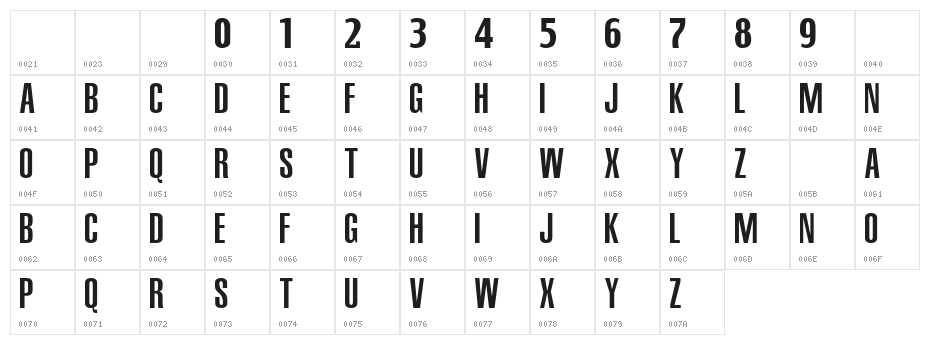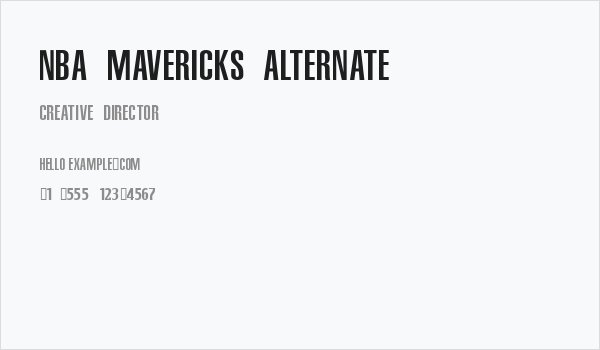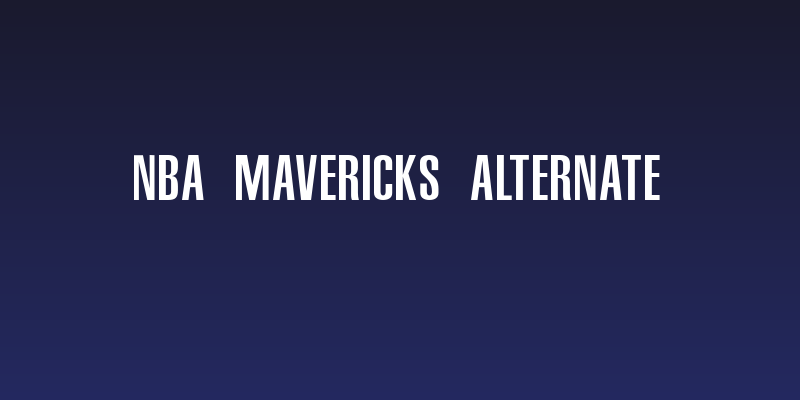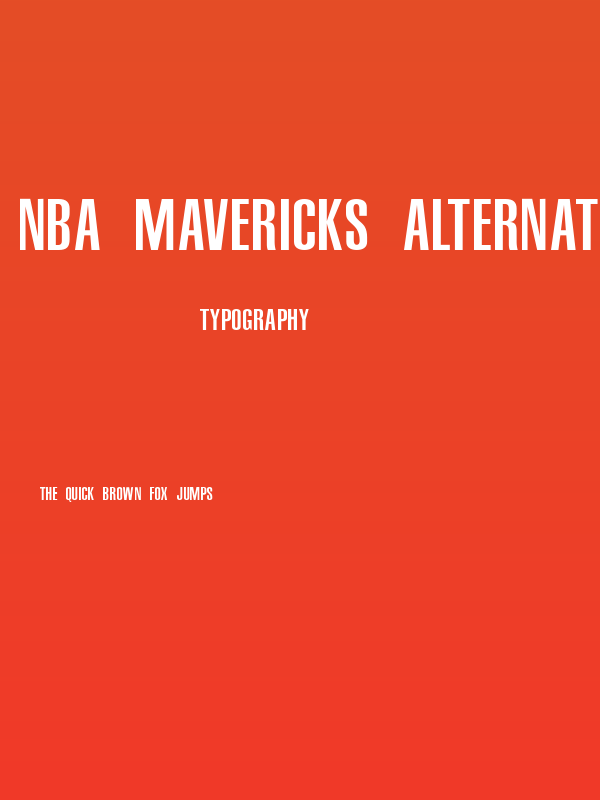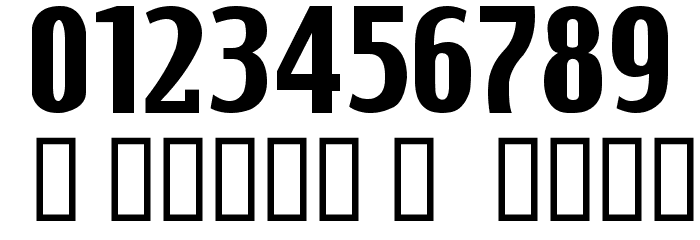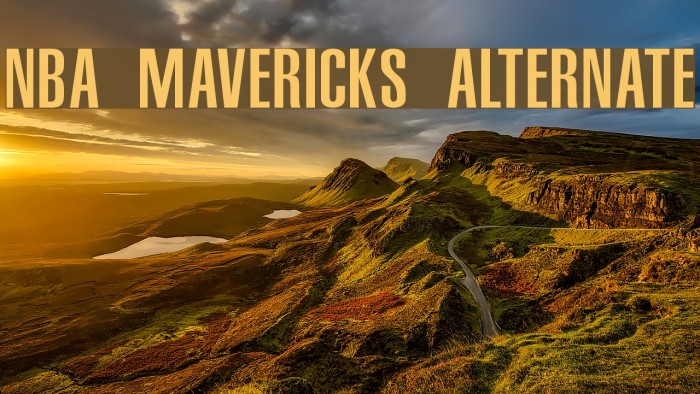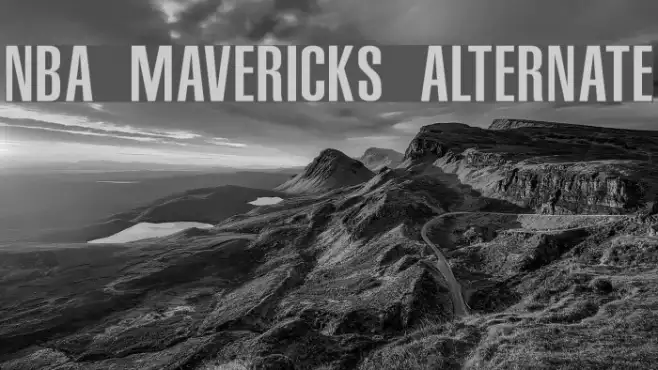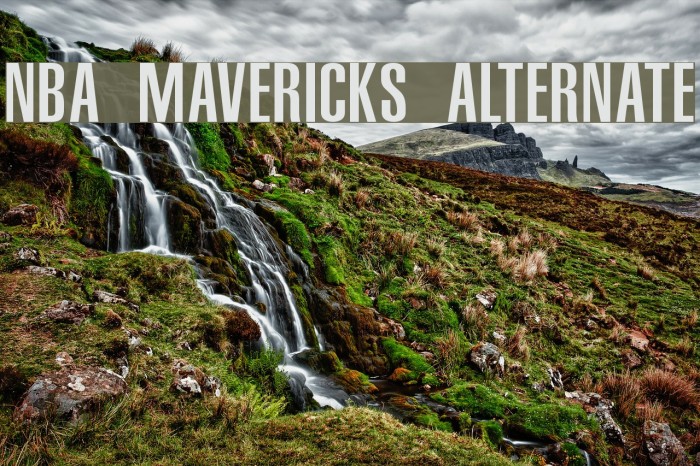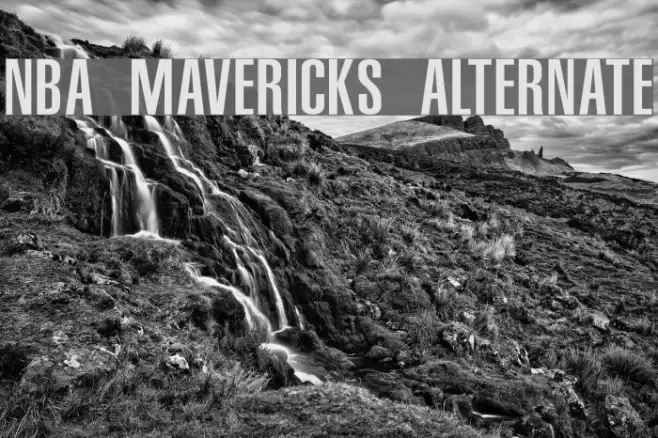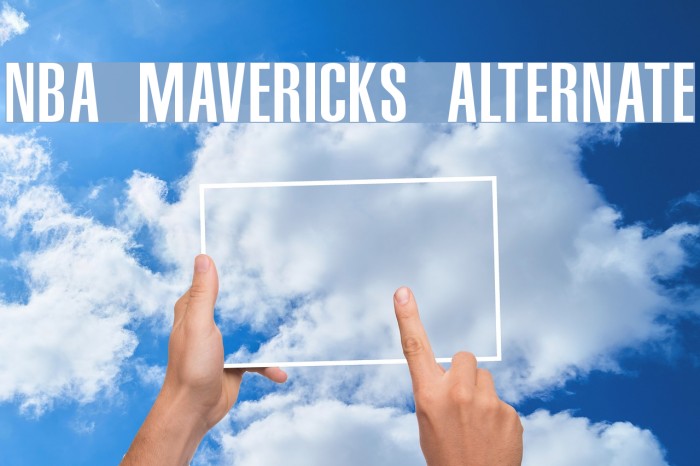
NBA Mavericks Alternate Font
NBA Mavericks Alternate Description
This font features a bold and impactful design with strong, clean lines and a modern aesthetic. The uppercase letters are tall and commanding, while the lowercase letters maintain a consistent height, creating a cohesive look. The numerals are equally bold, ensuring visibility and readability. The font's geometric structure and uniform stroke width give it a contemporary feel, making it suitable for various design applications. The spacing between characters is tight, enhancing its compact and powerful appearance.
| Proposed Projects | Ideal for sports branding, posters, headlines, and any project requiring a bold, impactful typeface. |